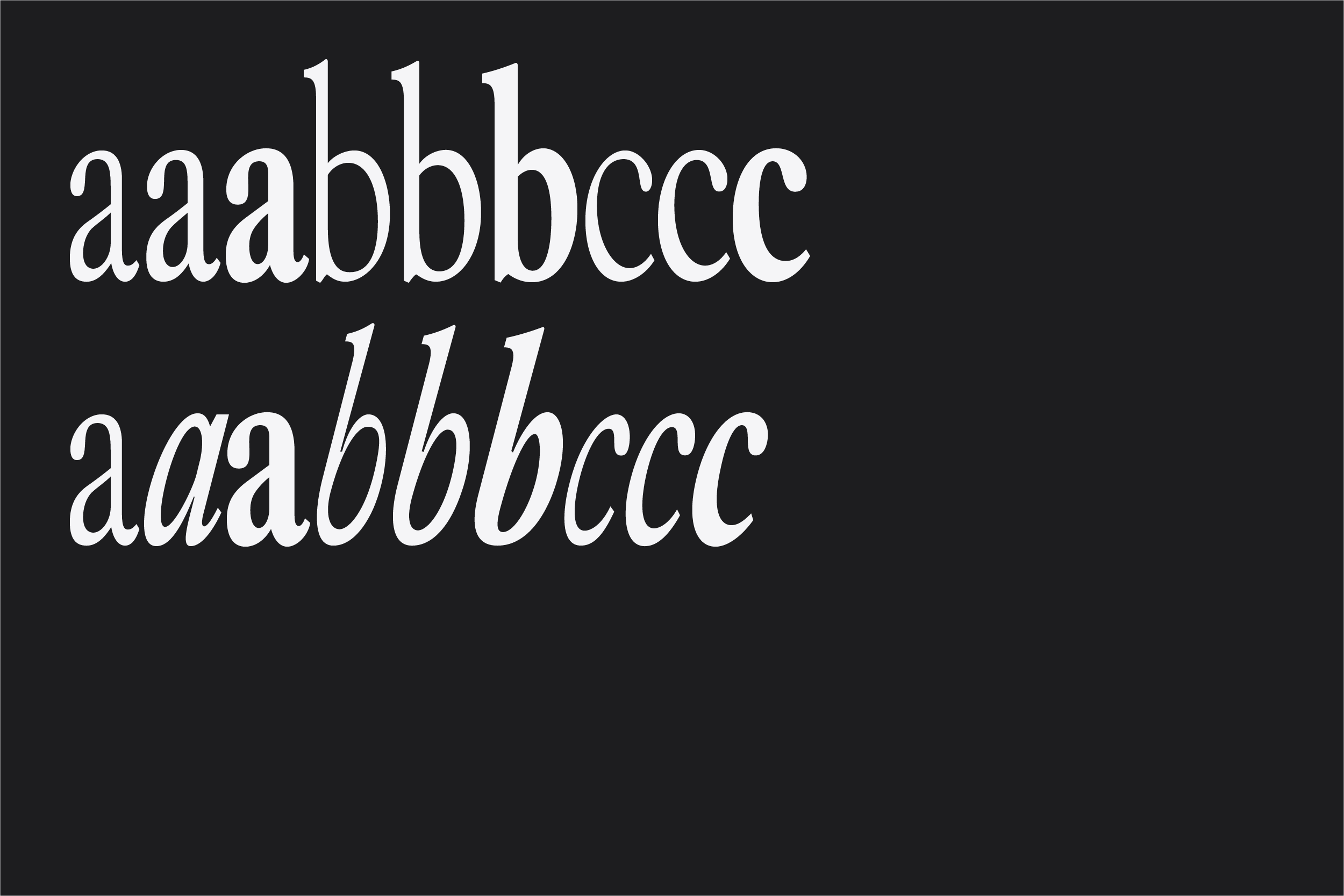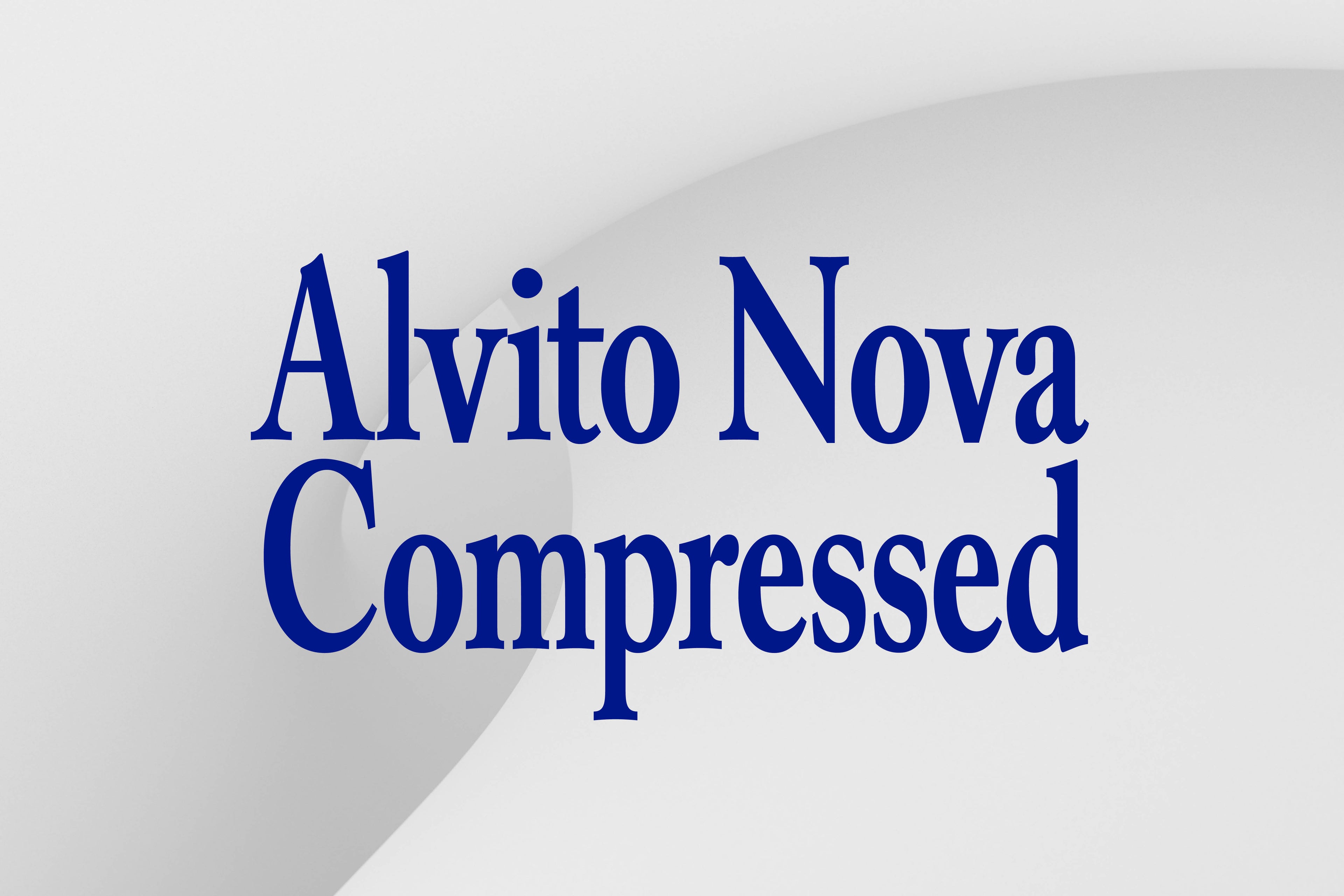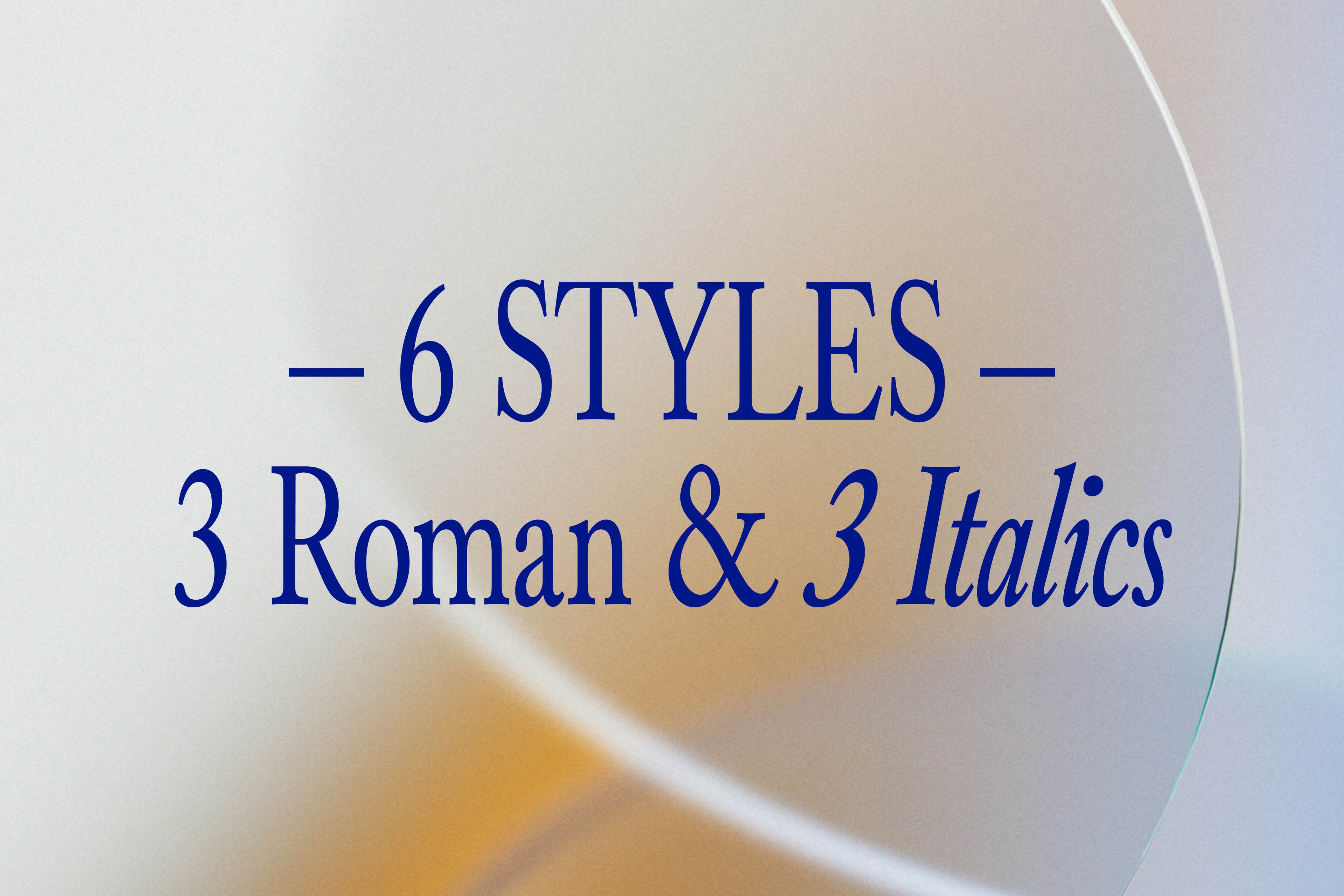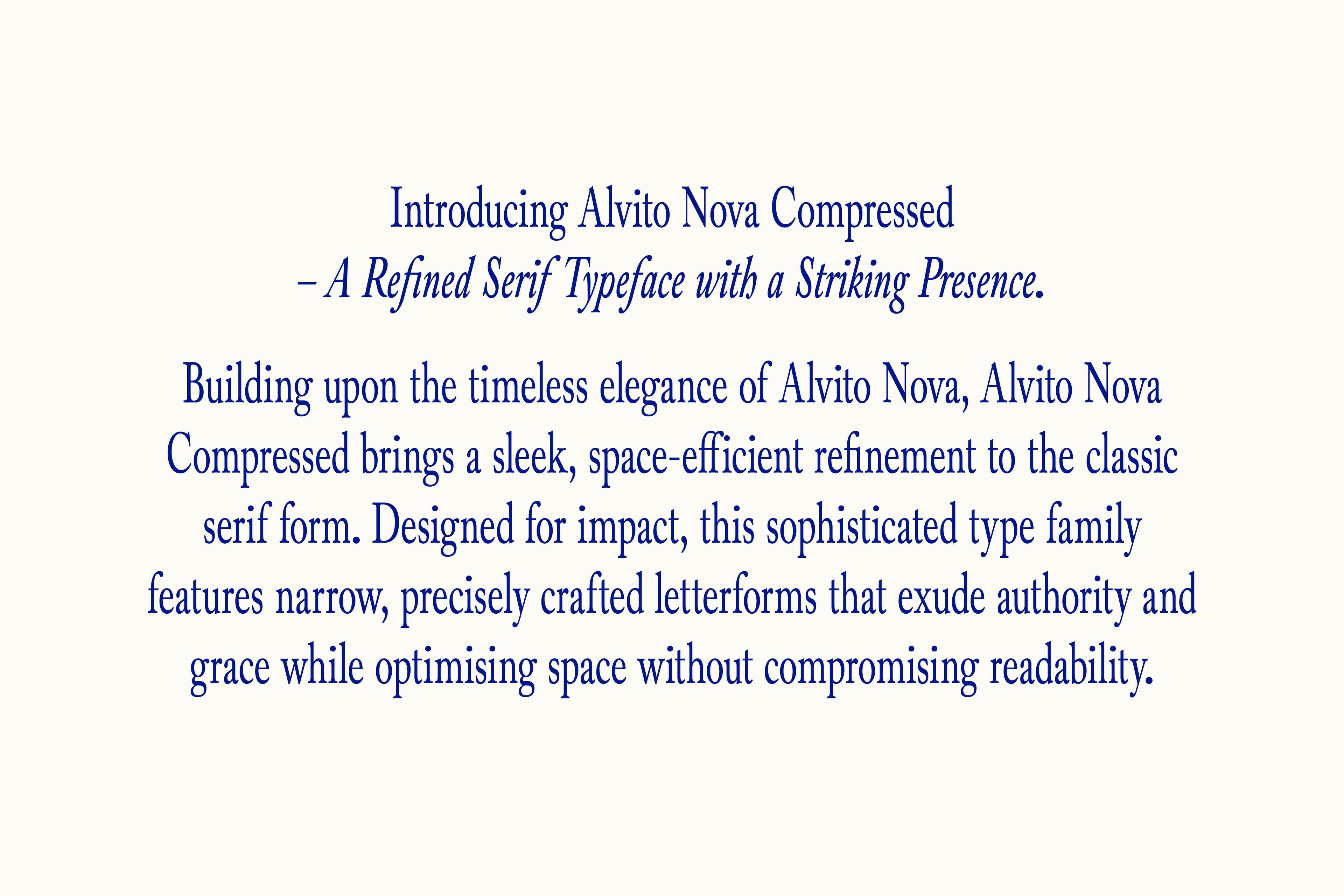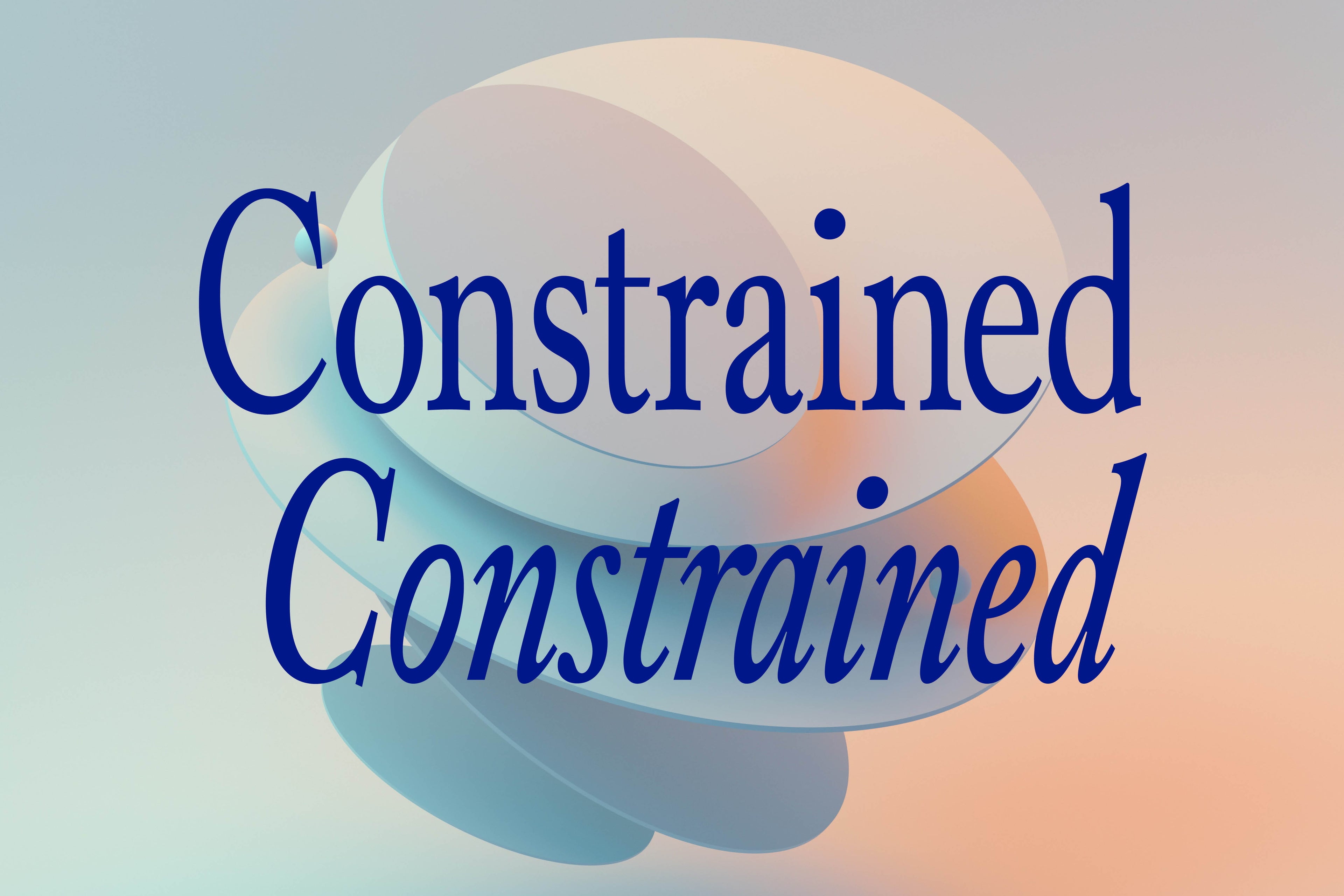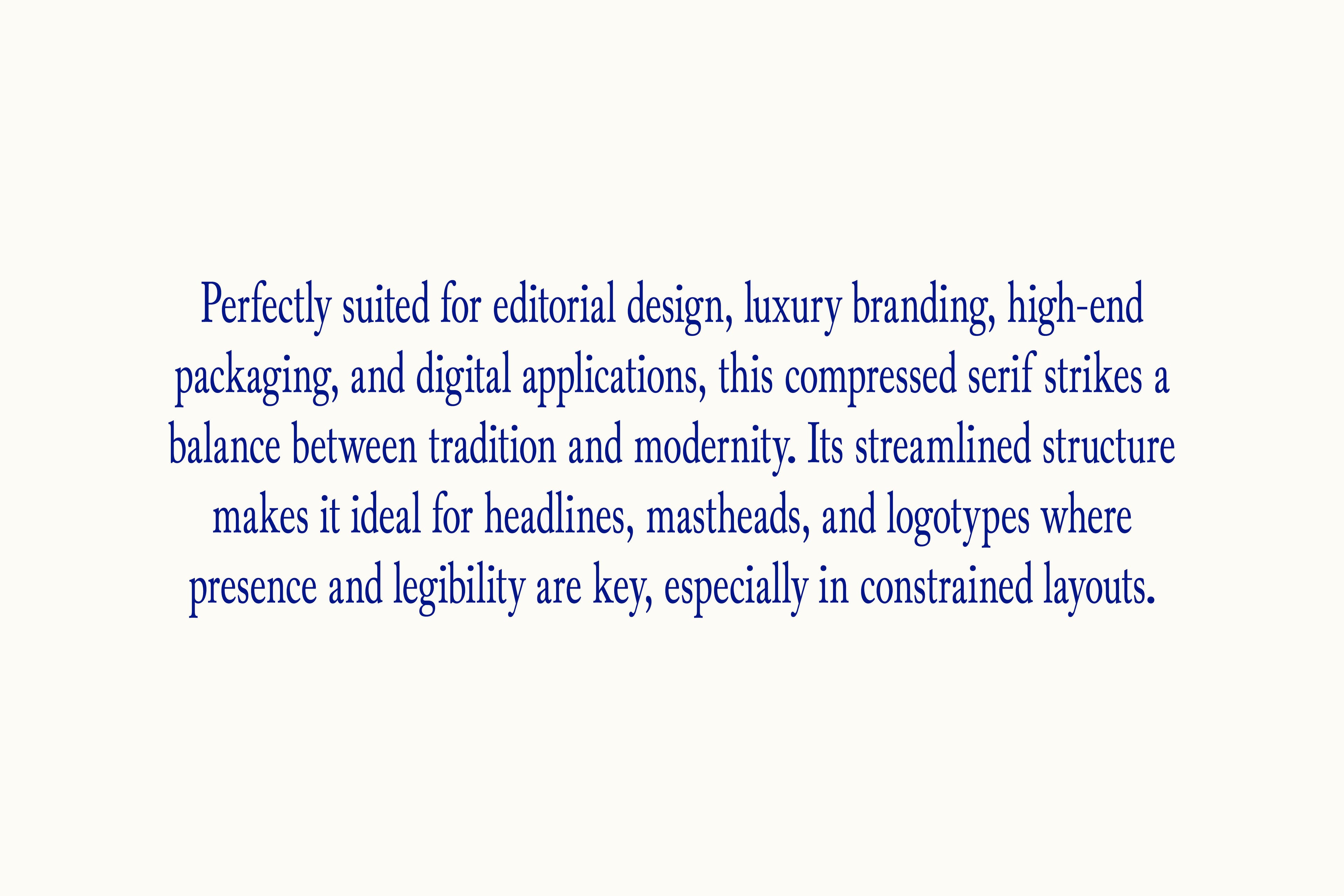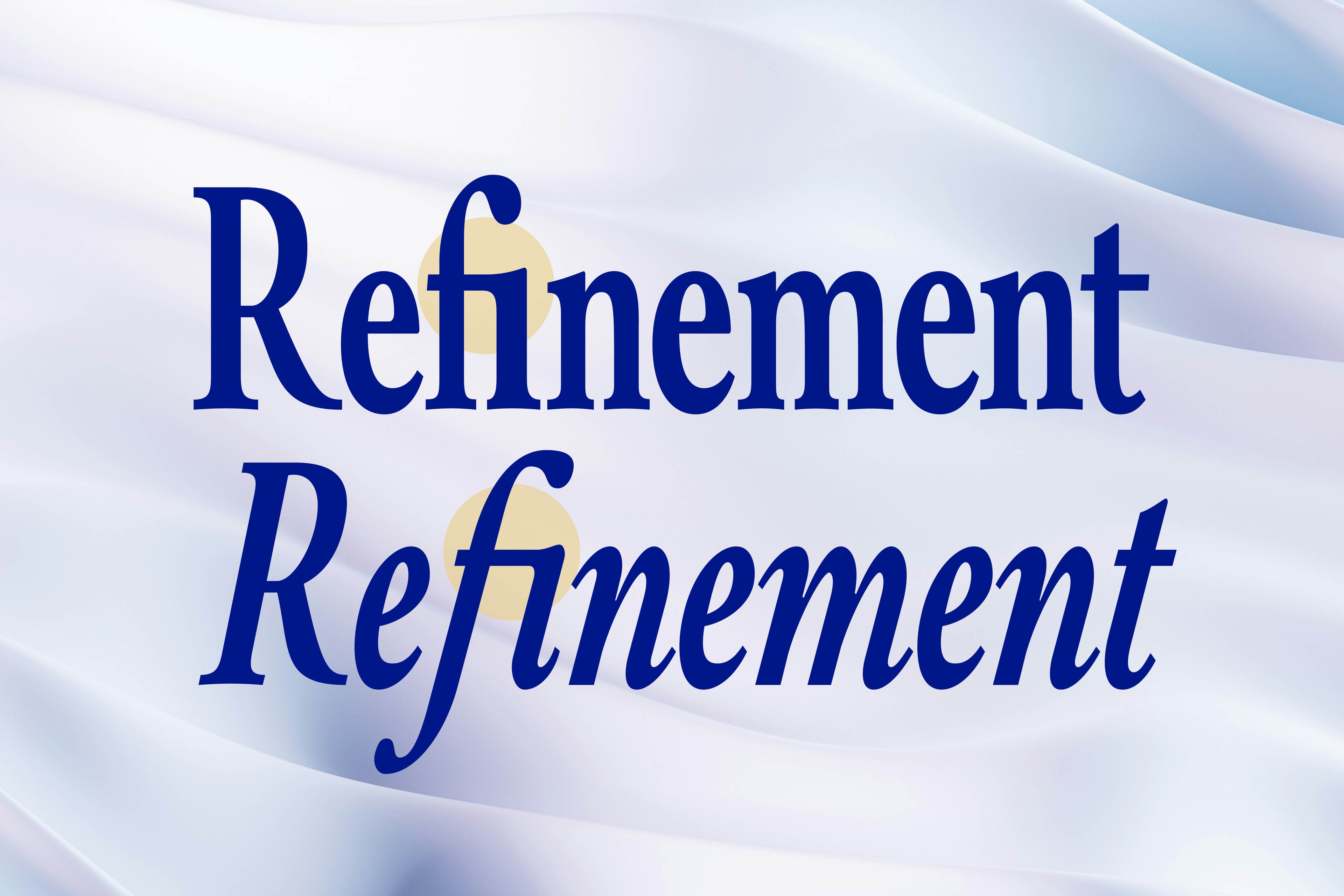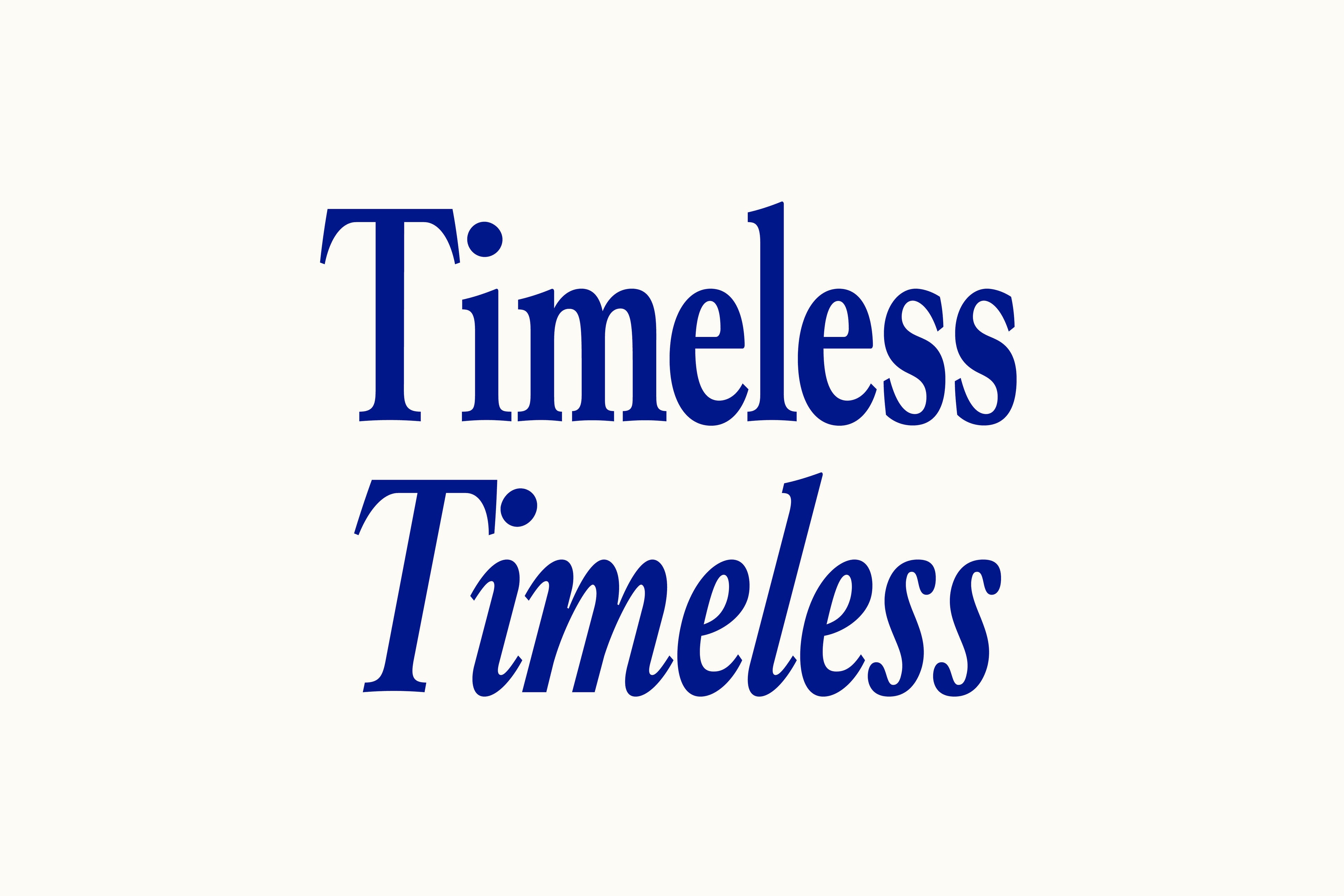
Introducing Alvito Nova Compressed – A Refined Serif Typeface with a Striking Presence.
Building upon the timeless elegance of Alvito Nova, Alvito Nova Compressed brings a sleek, space-efficient refinement to the classic serif form. Designed for impact, this sophisticated type family features narrow, precisely crafted letterforms that exude authority and grace while optimising space without compromising readability.
Perfectly suited for editorial design, luxury branding, high-end packaging, and digital applications, this compressed serif strikes a balance between tradition and modernity. Its streamlined structure makes it ideal for headlines, mastheads, and logotypes where presence and legibility are key, especially in constrained layouts.
With its tall, elegant proportions and finely tuned serifs, Alvito Nova Compressed delivers sophistication in a compact form, making it a powerful choice for designers who demand both refinement and efficiency. Whether in print or digital, this type family ensures your typography stands out with poise, prestige, and timeless appeal.
Refine your design language with Alvito Nova Compressed – where elegance meets precision.